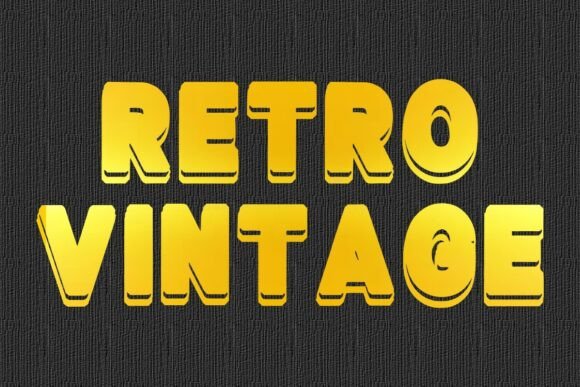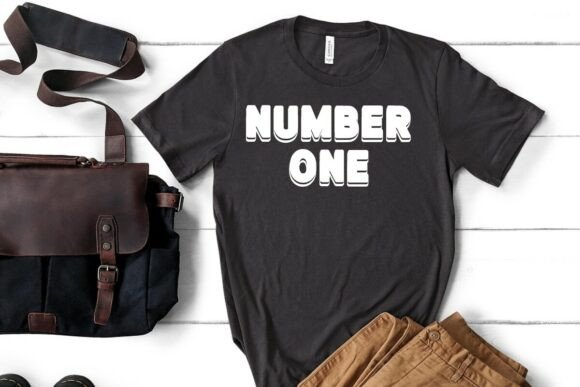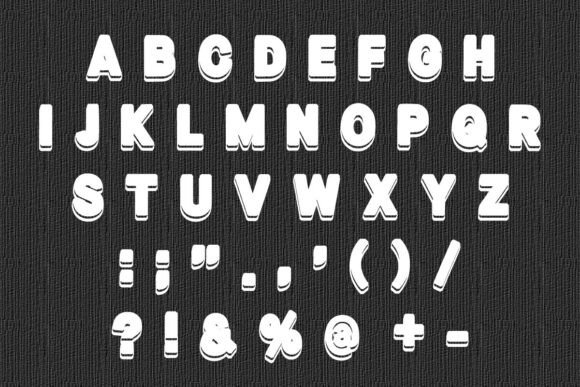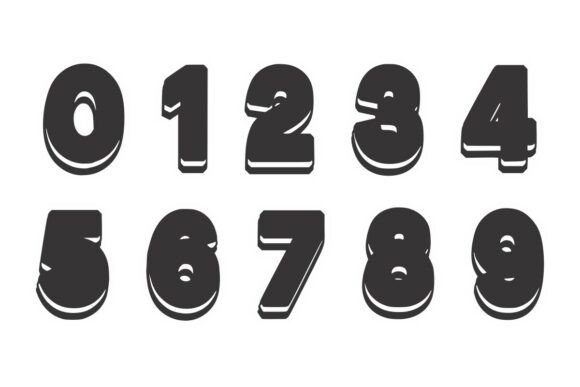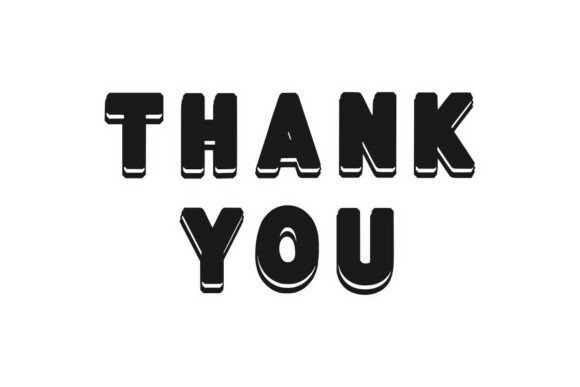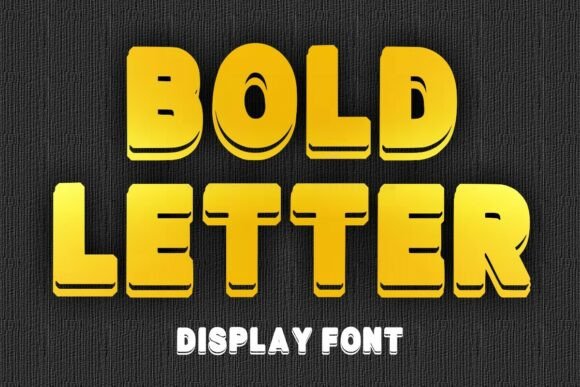
Unlock the Power of Bold Letter Font: Elevate Your Designs with Impact
In the world of design, fonts play a crucial role in conveying messages and capturing audiences’ attention. Among the numerous font styles available, the bold letter font stands out for its striking and powerful appearance. One such exemplary font is the Bold Letter – Display Font, meticulously crafted to make a significant visual impact. This article explores the features, versatility, and applications of the Bold Letter font, highlighting its potential to transform your designs.
The Essence of Bold Letter – Display Font
Bold Letter – Display Font is characterized by its thick, solid, and impactful letterforms, designed to grab attention instantly. This modern bold style font is not just about making a statement; it’s about commanding presence and exuding confidence. Whether you’re working on digital projects or print materials, this font seamlessly adapts, ensuring your message is conveyed with clarity and strength.
Versatility Across Various Design Projects
The versatility of Bold Letter – Display Font is one of its most compelling attributes. Its applications span across a wide range of design projects, including:
- Posters and Banners: Create eye-catching posters and banners that capture the audience’s attention from a distance.
- Headlines and Titles: Use Bold Letter to craft headlines and titles that stand out in any article, blog post, or website.
- Product Packaging: Elevate your product packaging with a bold and modern look that reflects the quality and personality of your brand.
- Advertising and Branding: Strengthen your brand identity with a font that communicates confidence and reliability.
- Event Promotions: Promote events, such as sports events, music festivals, and product launches, with visually appealing materials.
- Social Media Graphics: Enhance your social media presence with bold and engaging graphics that demand attention.
Why Choose Bold Letter – Display Font?
Choosing Bold Letter – Display Font for your design projects comes with several benefits:
- Instant Impact: The bold and solid letterforms ensure that your message is noticed immediately.
- Modern Aesthetic: The font’s modern style gives your designs a contemporary look that appeals to a wide audience.
- Versatility: Suitable for both digital and print use, making it a versatile choice for various projects.
- Energy and Confidence: Adds a dynamic and confident feel to your designs, essential for brands and messages that aim to make a lasting impression.
Tips for Using Bold Letter – Display Font Effectively
To maximize the potential of Bold Letter – Display Font, consider the following tips:
- Use Sparingly: Due to its bold nature, it’s best to use this font sparingly to avoid overwhelming the viewer. It works well as a headline or title font.
- Combine with Complementary Fonts: Pair Bold Letter with simpler fonts for body text to create a balanced and harmonious design.
- Consider Contrast: Ensure there’s sufficient contrast between the text and background to maintain readability and visual impact.
- Experiment with Colors: While the font itself is bold, experimenting with different colors can further enhance its impact and adapt it to your brand’s palette.
Bold Letter – Display Font is a powerful tool in the world of design, offering a unique combination of impact, modernity, and versatility. Whether you’re a designer looking to elevate your projects or a craftsperson aiming to create visually stunning materials, this font is an excellent choice. By incorporating Bold Letter into your designs, you can ensure that your message stands out, commands attention, and leaves a lasting impression. Unlock the power of bold letter fonts and transform your designs with confidence and style.